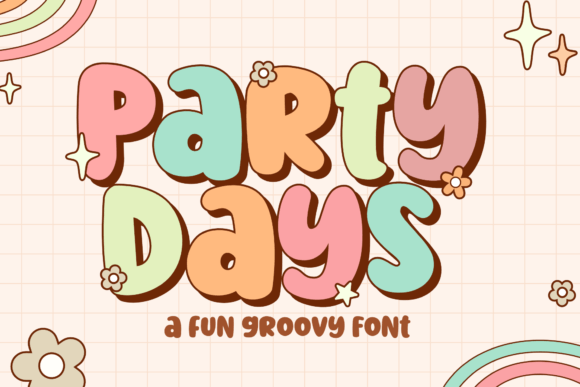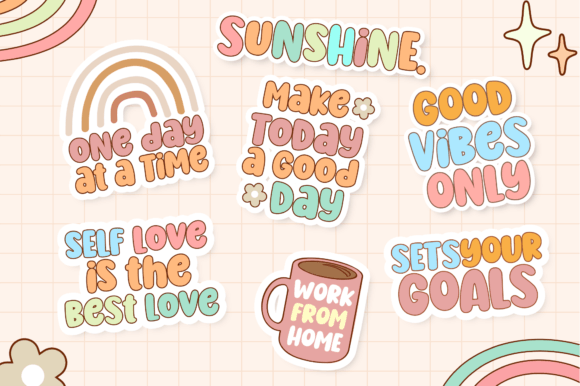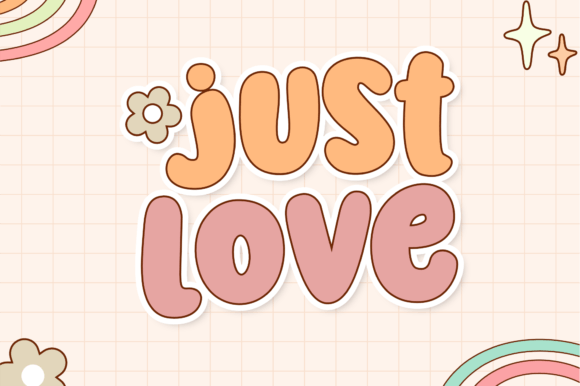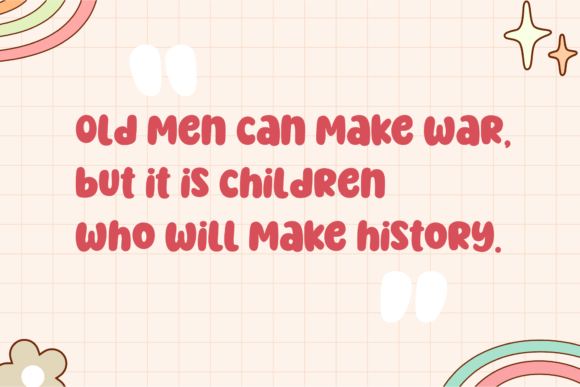
Party Days Font
About the Party Days Font
Explore the possibilities with Party Days Font, a font that offers both beauty and functionality. Party Days is a fun groovy font, inspired by retro bold typography. This font is perfect for a design that requires a playful accent. Party Days is suitable for book covers, posters, packaging, merchandise, logotype, and much more.
Its bold, playful strokes work best in headlines, short impactful phrases, and logos where a retro-inspired, fun aesthetic is desired. Avoid using Party Days for body text or longform content; its strong character detracts from readability in extended passages. It’s ideal for projects targeting a younger demographic, or brands with a vibrant, energetic personality such as a retro-themed cafe, a vintage clothing store, or a music festival.
Pairing Party Days with a clean sans-serif like Montserrat for body copy or a more refined serif font like Playfair Display for supporting text creates a balanced design. For a more playful feel, consider pairing it with a handwritten script, but ensure legibility remains prioritized. Conversely, using a geometric sans-serif would offer a modern contrast.
The font’s inherent energy is best showcased in applications with ample space and a strong visual hierarchy. Smaller sizes can easily become muddled, diminishing the impact of its distinctive character.
Party Days Font Usage Examples
Party Days Font Example